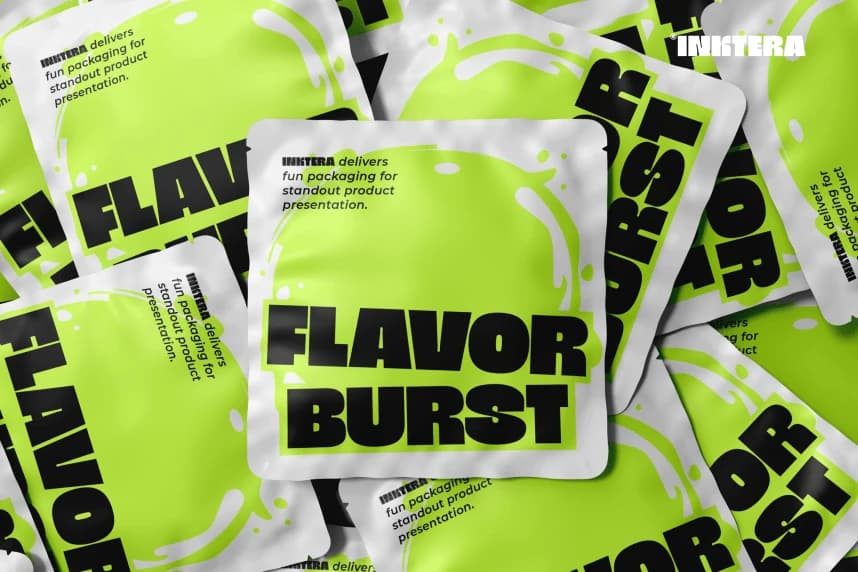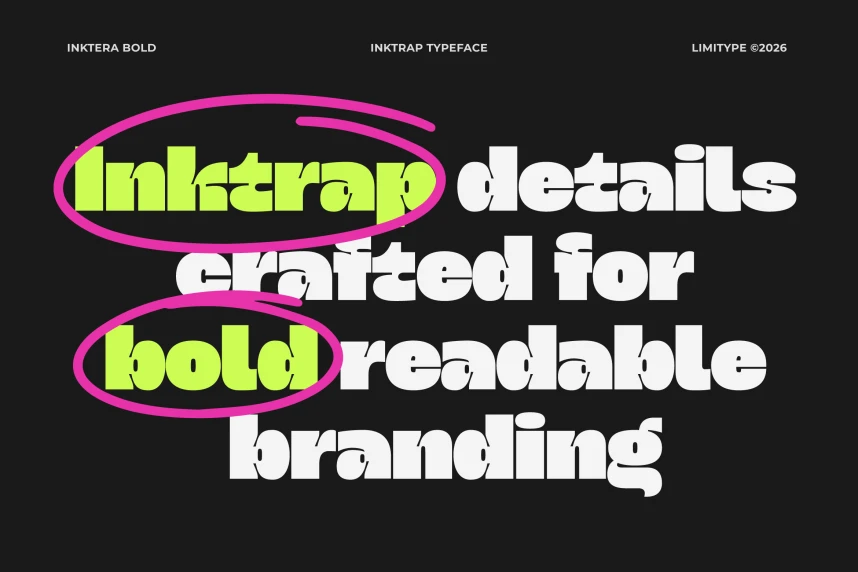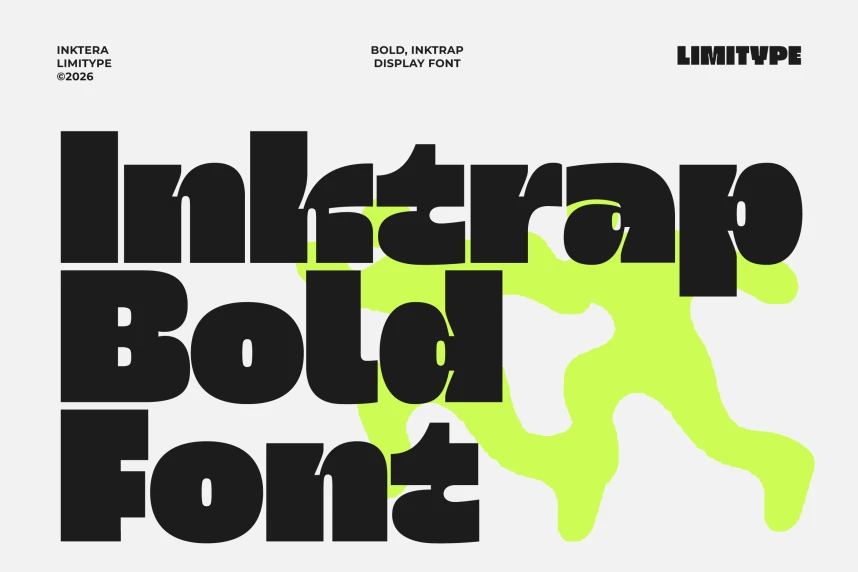
Inktera Font
Inktera Font is a bold display font featuring distinctive Inkrap inspired details and a unique character structure designed to stand out across various digital and print design needs. Inktera is suitable for branding, headlines, posters